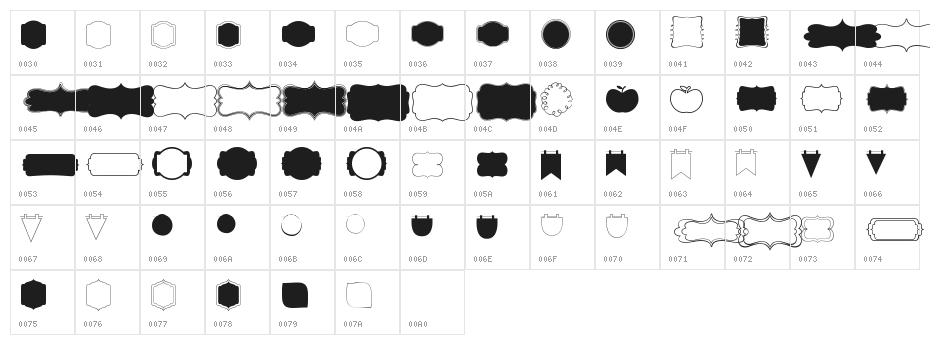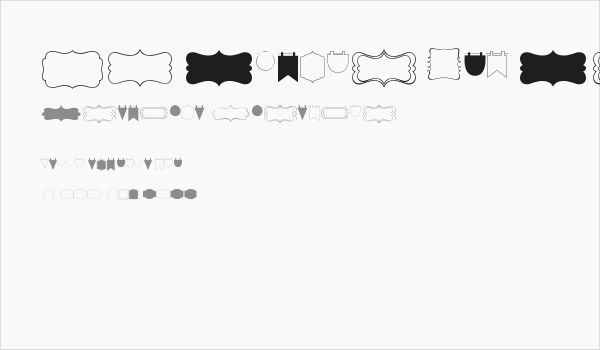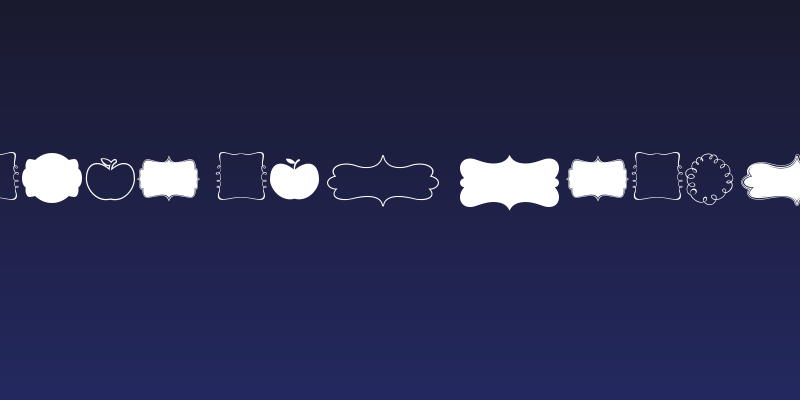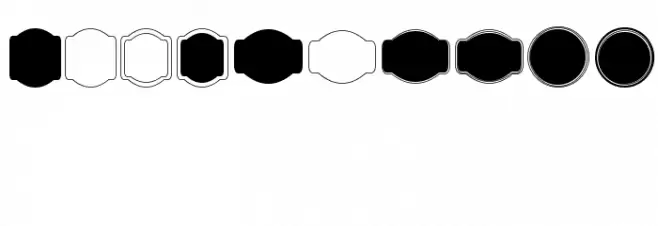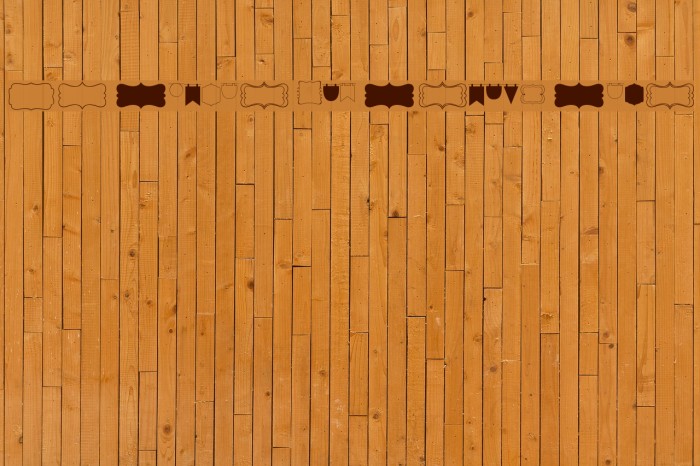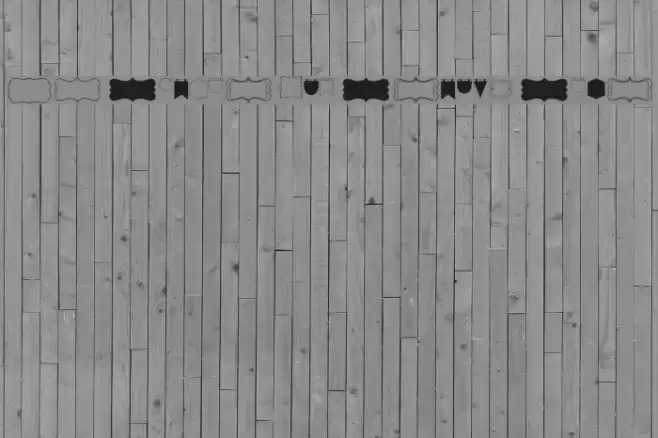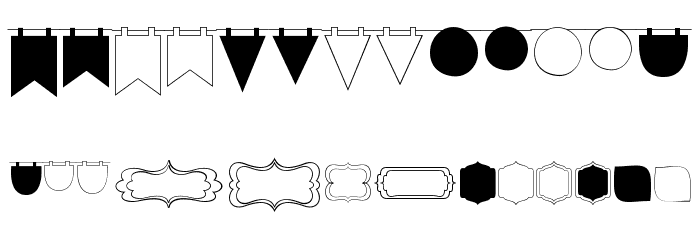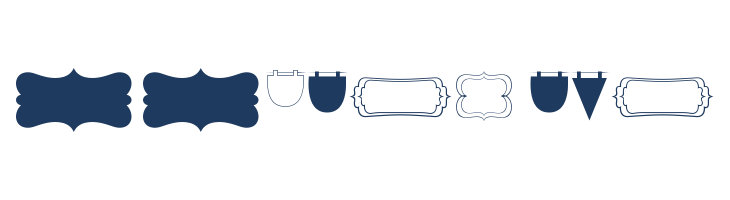
KG Flavor And Frames Four Font
KG Flavor And Frames Four Description
A decorative dingbat set featuring a variety of ornate frames, banners, labels, and shapes in both solid and outline styles. The glyphs include vintage-inspired borders, pennants, apples, and circular motifs, designed for embellishing text or creating labels and signage.
| Overall Style | Decorative, playful, vintage-inspired |
| Use Case | Labels, frames, banners, decorative accents |
| Proposed Projects | Scrapbooking, classroom decor, printable labels, invitations, signage, planners, and craft projects. |